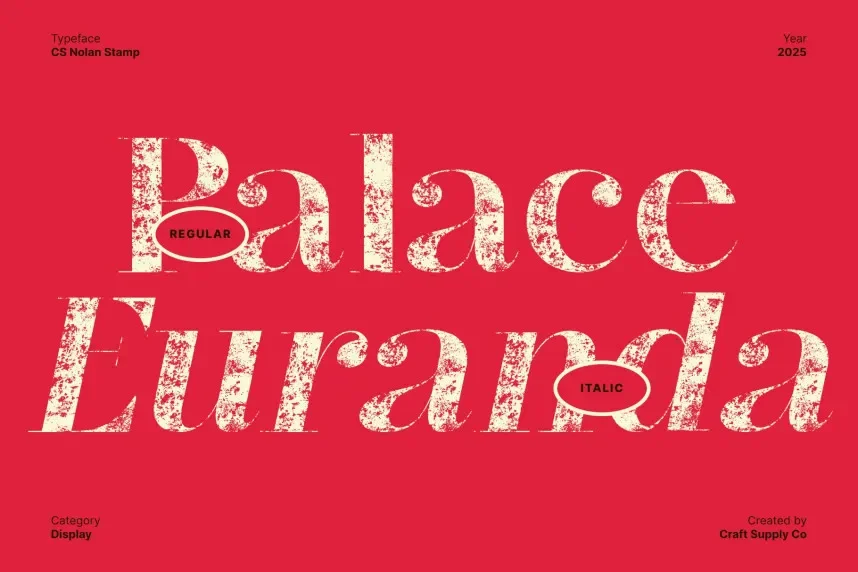
CS Nolan Stamp Font is a display typeface designed to solve authenticity and texture issues in branding and print design. Designers use stamp-style fonts when clean typography feels too polished for labels, posters, or packaging.
This font uses rough edges, uneven ink textures, and bold letterforms inspired by traditional rubber stamps. Stroke weight stays heavy, improving readability even with distressed details. CS Nolan Stamp Font focuses on visual impact rather than long-form reading.